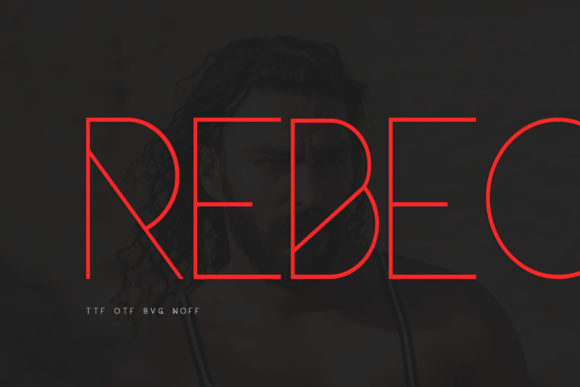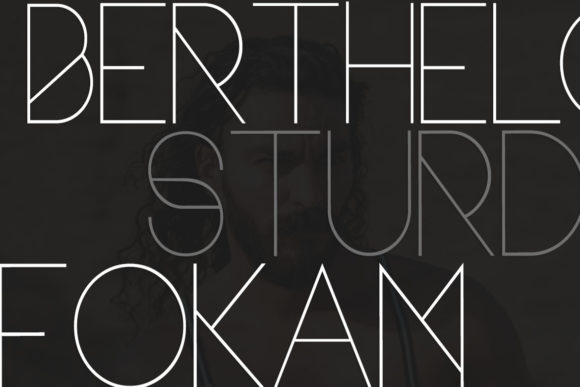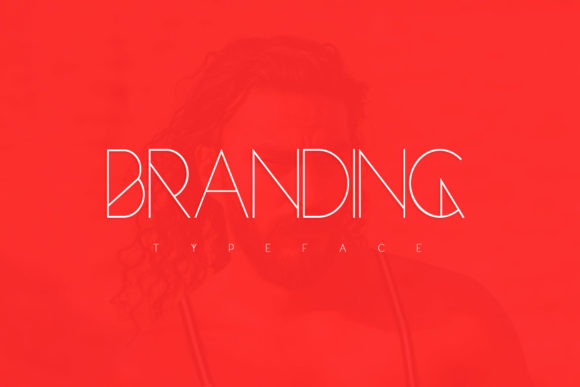
The Designer’s Delight: Exploring the Elegance of Carlos Font
I’ll never forget the time I was working on a branding project for a trendy new coffee shop. My client was adamant that they wanted a modern, sleek look that would appeal to the younger crowd. I spent hours scouring through font libraries, but nothing seemed quite right. That was when I stumbled upon Carlos Font. Its clean lines, minimalist aesthetic, and professional vibe instantly won me over. It was the perfect fit for the project, and my client loved it! In this article, I’ll share with you why Carlos Font has become a staple in my design toolkit and how you can make the most of its features.
A Personal Review: What I Love About Carlos Font
Carlos Font is a beautiful, sans serif typeface that exudes elegance and sophistication. Here are some things that I absolutely love about it:
- ✨ Minimalist aesthetic: Carlos Font has a clean and uncluttered design that makes it perfect for modern designs.
- ✅ High legibility: The font is easy to read, even at smaller sizes, making it ideal for body text and headlines.
- 💼 Versatility: Carlos Font is suitable for a wide range of design applications, from posters and logos to subheadings and block letters.
- 🎨 Customizable: The font comes with a range of OpenType features, glyphs, and stylistic alternates that allow you to add your own creative twist.
While Carlos Font is an excellent typeface, there are a few things to keep in mind:
- 🤔 Limited italic options: While the font does come with italic styles, they are not as extensive as some other typefaces.
- ⚠️ Not ideal for body text: While Carlos Font is legible, it’s not the best choice for long blocks of body text. It’s better suited for headlines, titles, and short paragraphs.
The Designer Behind Carlos Font
Carlos Font was designed by a talented typographer who’s passionate about creating beautiful and functional typefaces. While the designer’s background is shrouded in mystery, it’s clear that they drew inspiration from modernist design principles and a love of simplicity.
| Font Name | Carlos Font |
| Author | BeeType |
| What is Carlos Font? | Carlos Font is a minimalist and neat sans serif typeface that’s perfect for modern designs. |
| What can I use Carlos Font for? | Carlos Font is suitable for a wide range of design applications, including posters, headlines, block letters, subheadings, logo designs, branding, and more. |